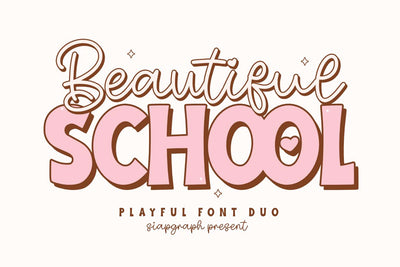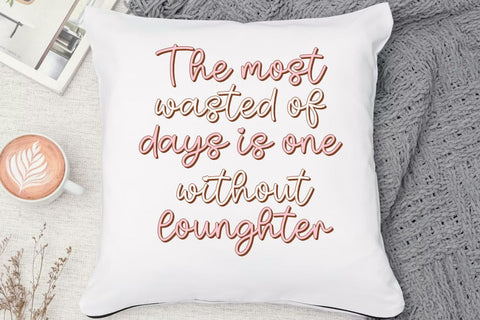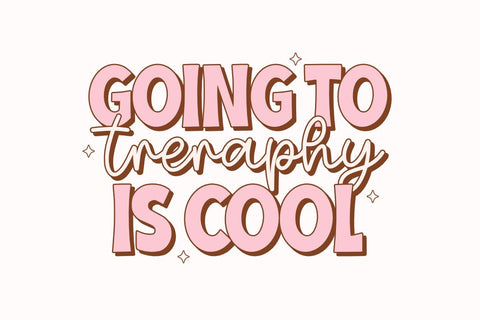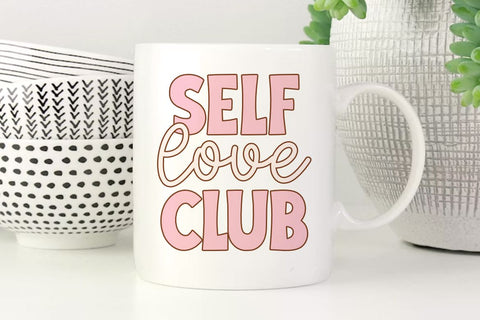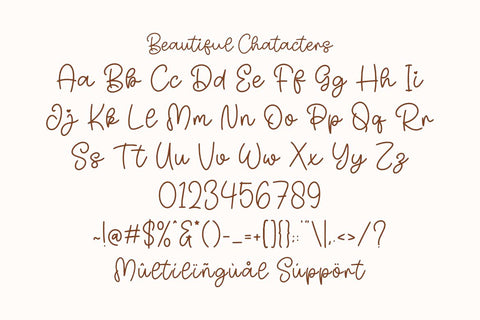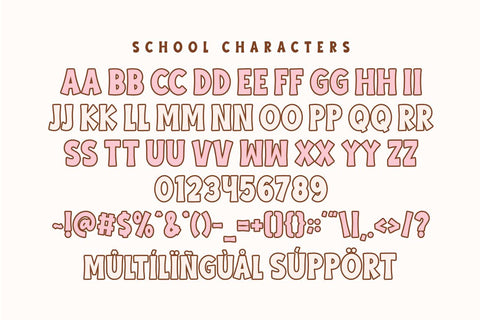
Beautiful School Duo Font
Beautiful School is a charming Font Duo specially crafted to bring a sense of joy, warmth, and learning to your creative projects. This pack includes a graceful, handwritten script font paired with a bold, chunky display font, allowing you to create perfectly balanced and visually appealing designs for classroom decor, school-themed apparel, and educational materials. Its clean construction is specifically optimized for the crafting community, ensuring a seamless and frustration-free experience for vinyl cutting, sublimation, and high-quality digital printing.
Perfect for: creating high-impact SVG cut files, Back to School classroom decorations, personalized student pencil cases, custom teacher t-shirts, school event flyers, back-to-school stickers, and playful social media graphics. Whether you are a professional Print on Demand (POD) seller or a teacher crafting unique classroom supplies, this font duo provides the perfect balance of readability, elegance, and whimsical personality for any project.
Great for holiday themes such as Back to School season, Teacher Appreciation Week, Birthdays, and Children's Day, adding a sweet, optimistic, and handcrafted personality to all your seasonal design collections!